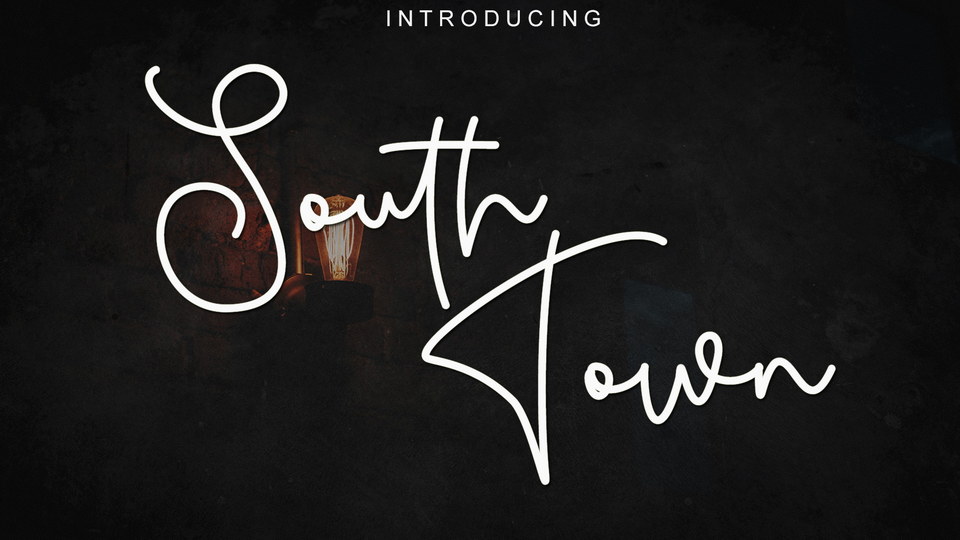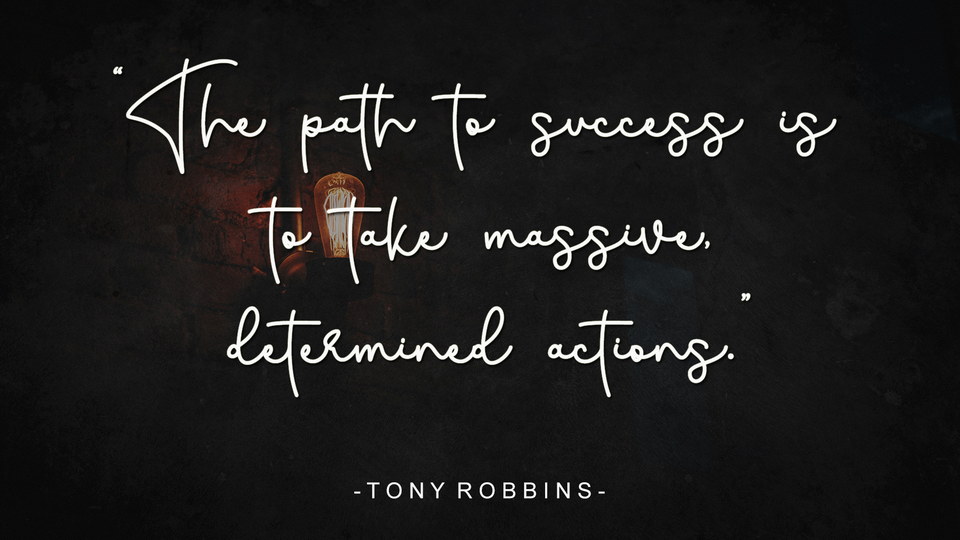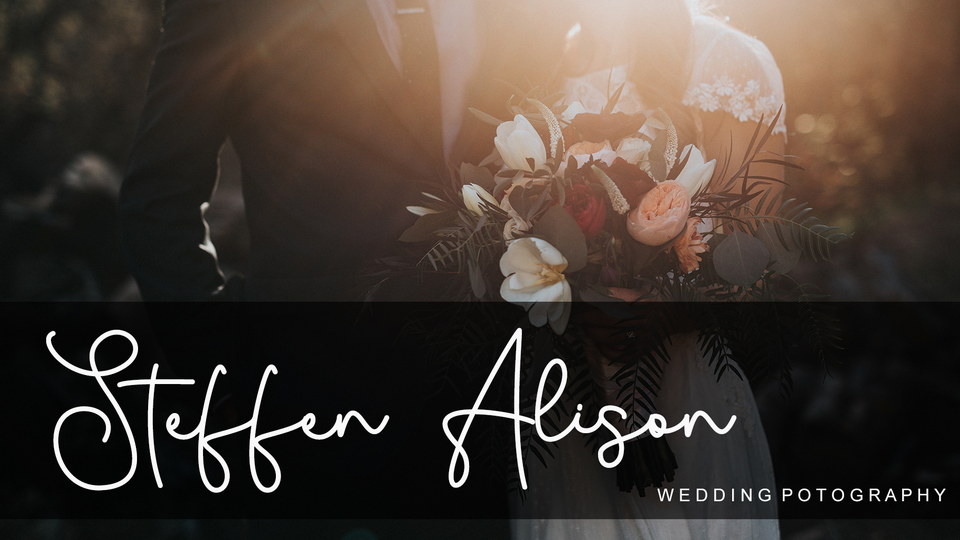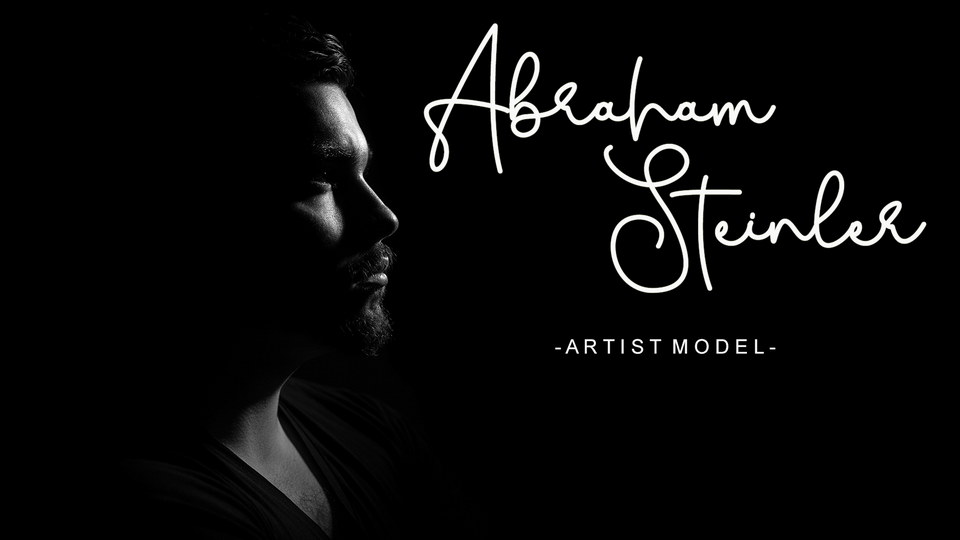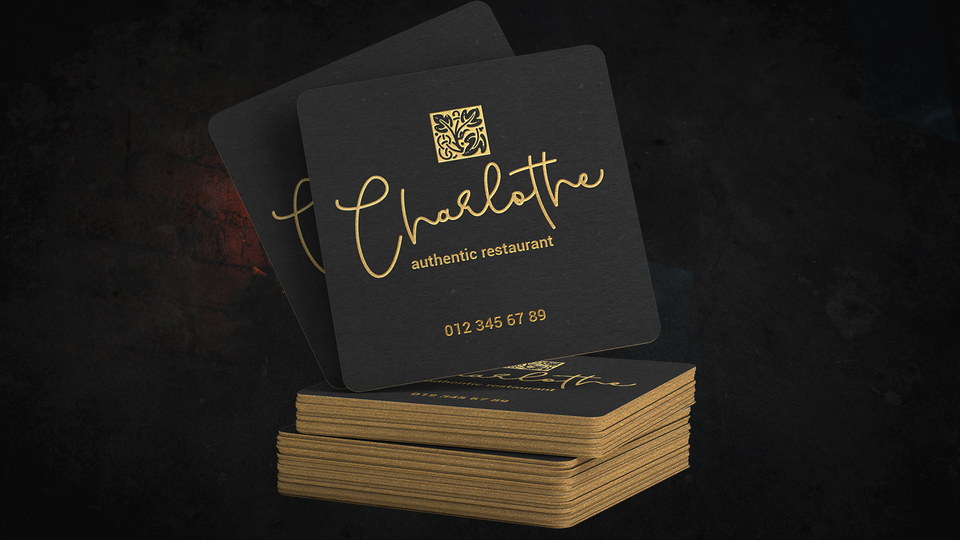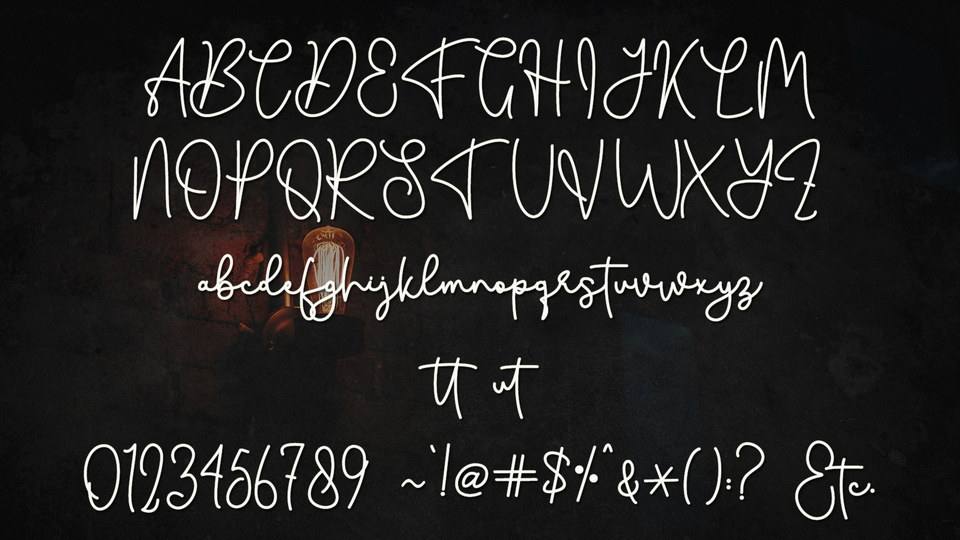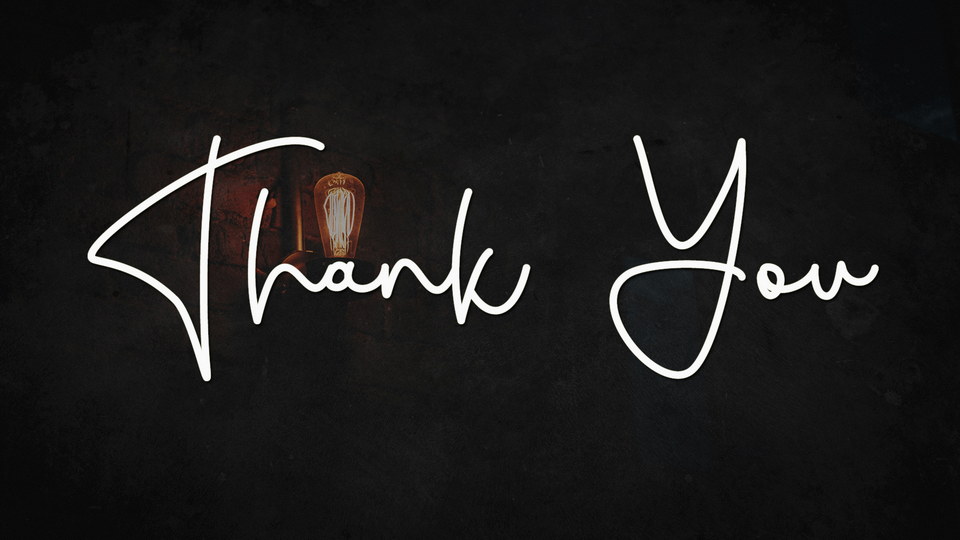
South Town is a casual monoline script font. It has flowing letters that will give your designs a unique and sweet look.
South Town font is perfect for logos, greeting cards, a package design, a brand identity, craft design, any DIY project, book title, wedding invitation, packaging, and more.